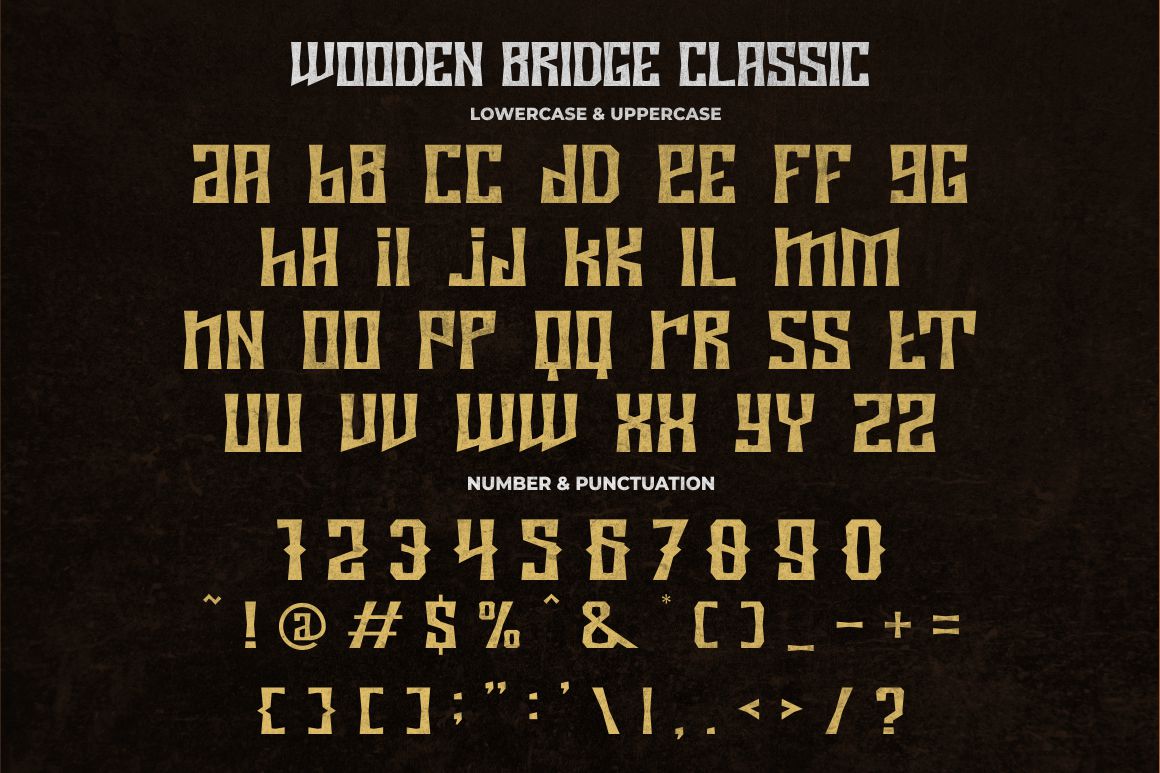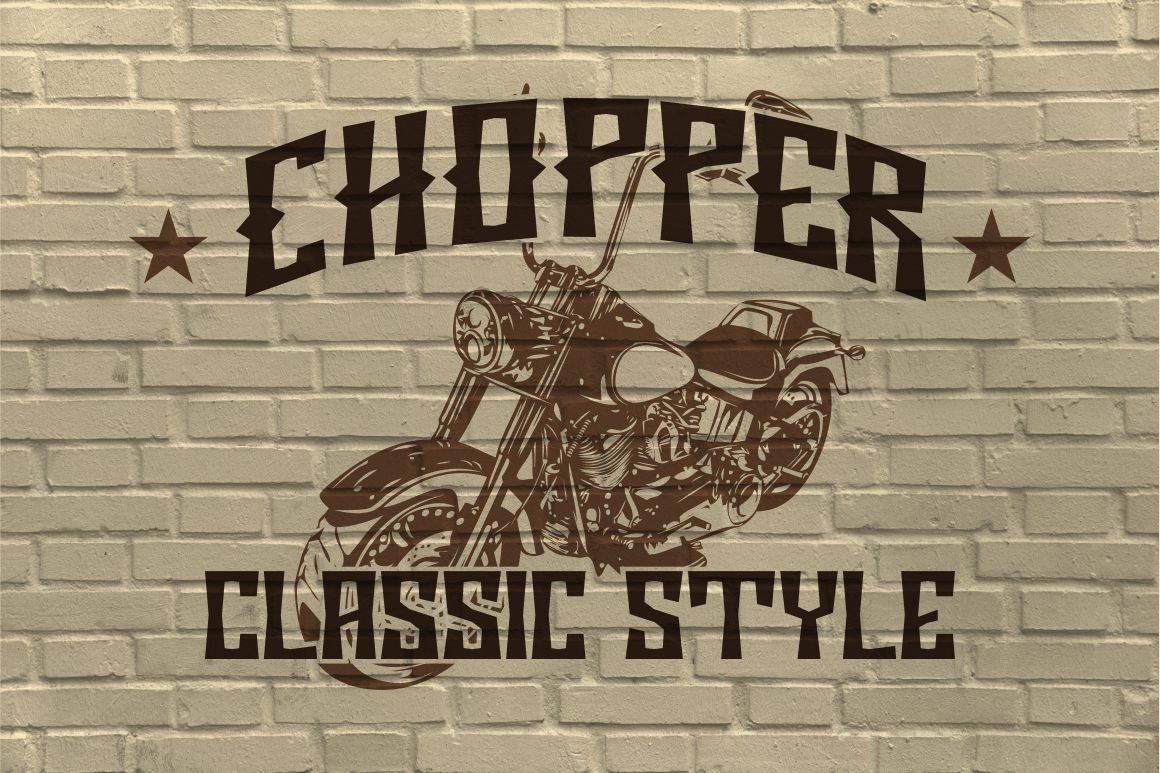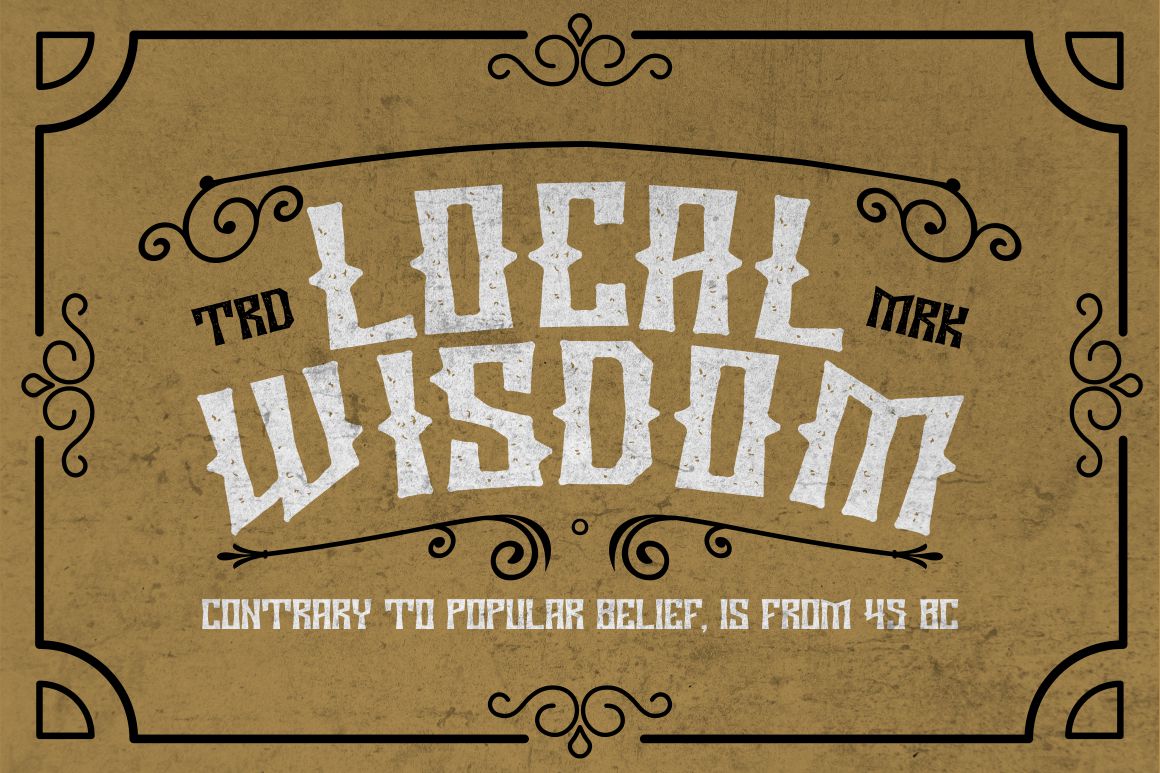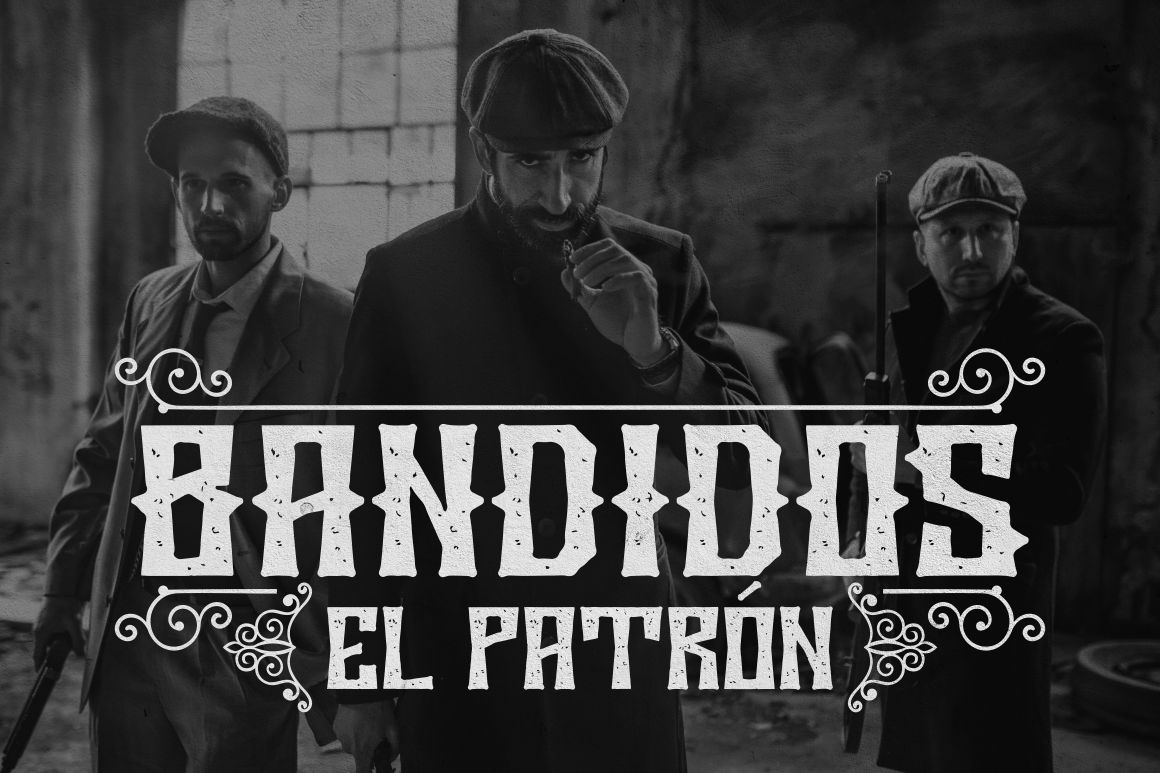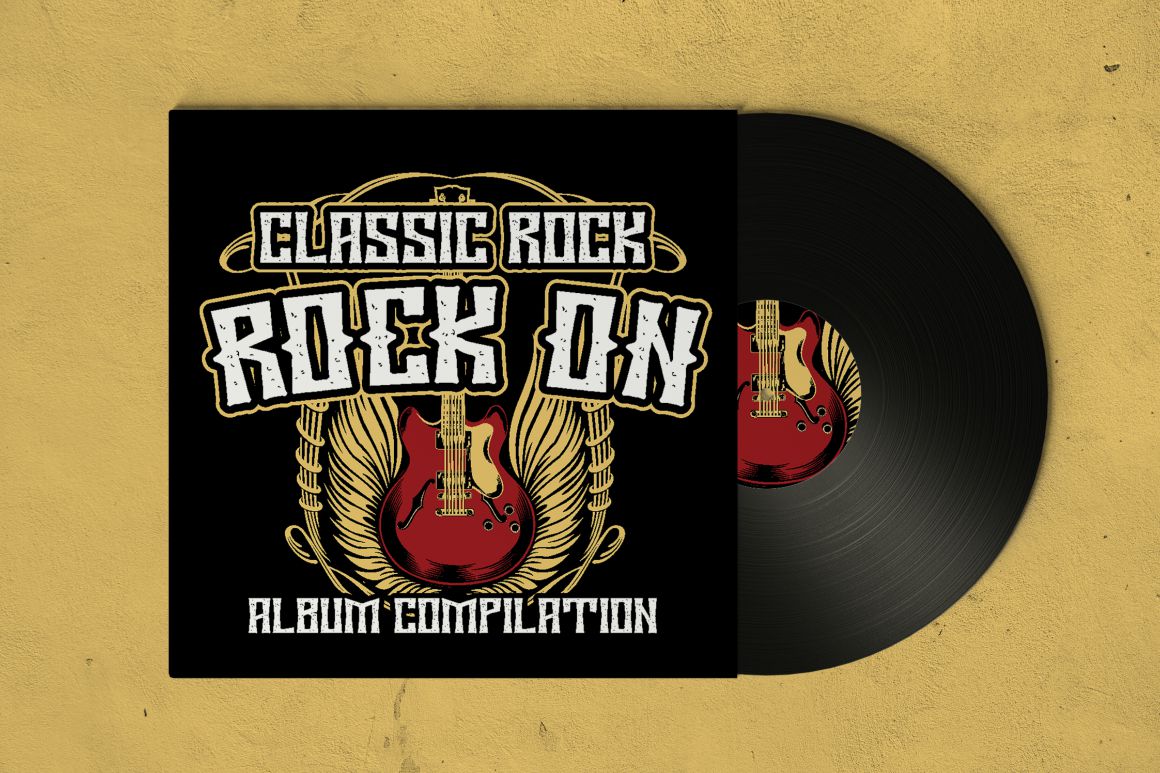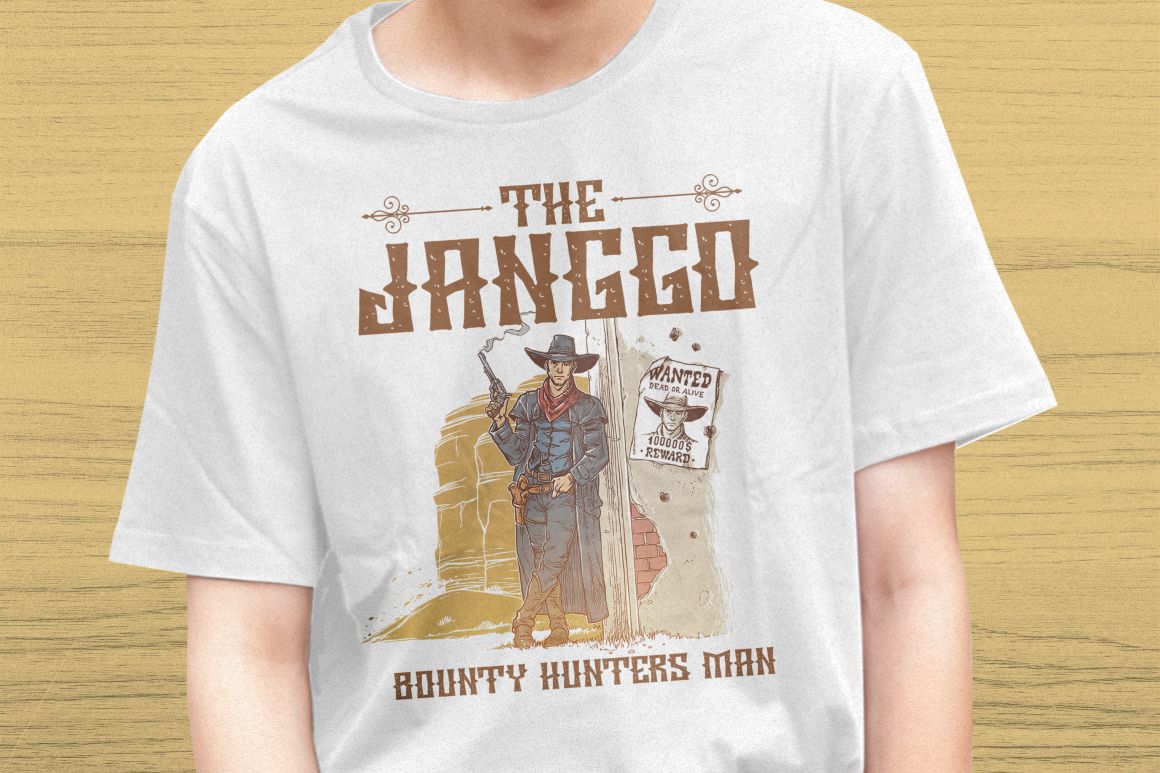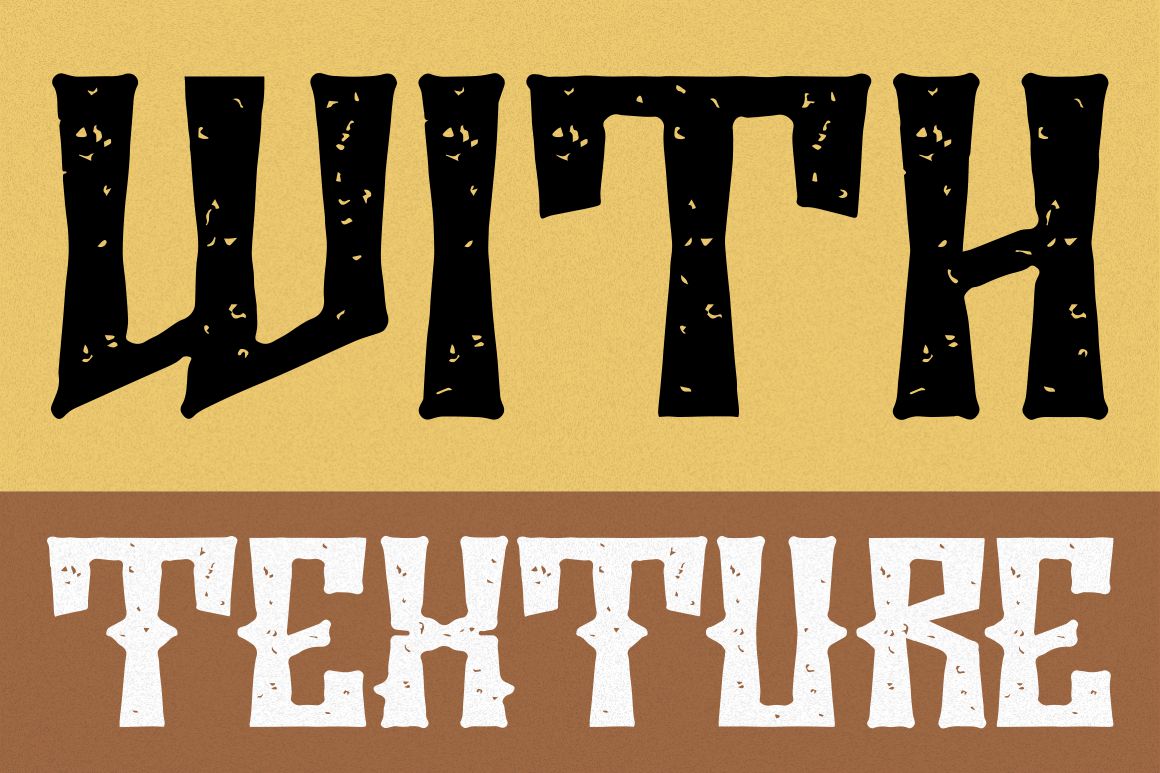
Looking for a vintage display font that can bring a touch of nostalgia to your designs? Check out Wooden Bridge from PutraCetol Studio! This unique font is perfect for creating designs related to vintage themes, old-fashioned signage, or anything that needs a touch of rustic charm.
Wooden Bridge Vintage Display Font features a unique and creative design with a rough texture, creating a rustic and vintage effect. The letters have a hand-drawn look, adding a touch of authenticity to your designs. This font is perfect for creating eye-catching headlines, logos, posters, and more.
One of the best things about Wooden Bridge Vintage Display Font is that it comes with a variety of alternate characters, ligatures, and swashes. This means that you can easily customize your designs and create a unique look that fits your brand. The font also includes multilingual support, so you can use it for projects in different languages.
Whether you’re a professional graphic designer or just starting out, Wooden Bridge Vintage Display Font is a great addition to your font library. With its vintage design and customizable features. So it’s perfect for creating unique and eye-catching designs that will make your projects stand out. So why wait? Download Wooden Bridge Vintage Display Font today and start creating!
With its vintage, hand-drawn look, Wooden Bridge is perfect for creating designs related to antique shops, old-fashioned products, or even for creating invitations for a rustic-themed wedding. The font can also be used for digital designs such as website headers, social media graphics, or blog posts.
In summary, Wooden Bridge Font is a unique and versatile font that can add a touch of vintage charm to any design project. With its customizable features and multilingual support, it’s a great addition to any designer’s toolkit. So why not try it out today and see what creative designs you can come up with!